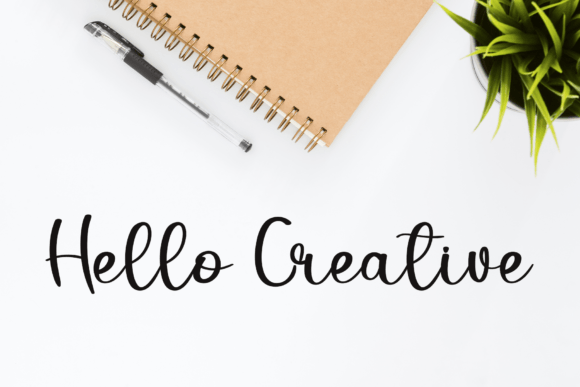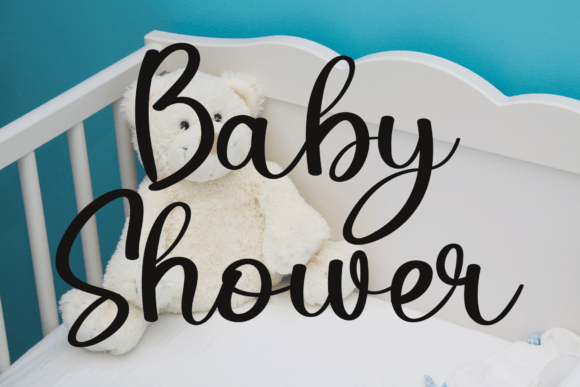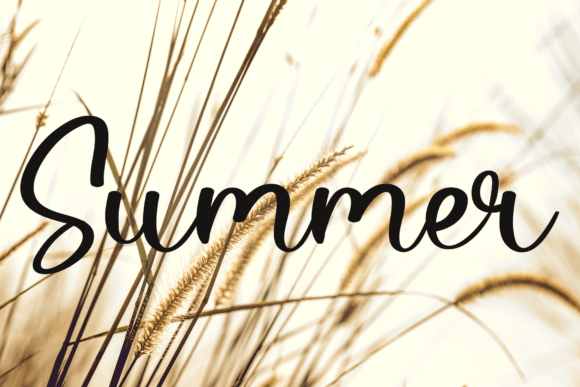
About Monday Font
“Monday” is a friendly handwritten font that has been meticulously designed to capture the hearts of designers and creatives. This font is poised to become a beloved favorite, a valuable addition to your font library, and a driving force behind the vitality of your creative projects.
The warmth and approachability of “Monday” make it a font that can breathe life into your designs. Its handwritten quality adds a personal and relatable touch to your text, making it suitable for a wide range of creative projects.
Whether you’re working on branding, social media graphics, invitations, posters, or any other creative endeavor, “Monday” seamlessly integrates into your work, infusing it with a sense of friendliness and charm.
By incorporating “Monday” into your design projects, you can elevate the overall appeal of your work, ensuring that it engages and resonates with your audience. Whether you’re a professional designer or someone who enjoys expressing creativity, “Monday” is a font that can help you bring your artistic visions to life with a touch of warmth and approachability.